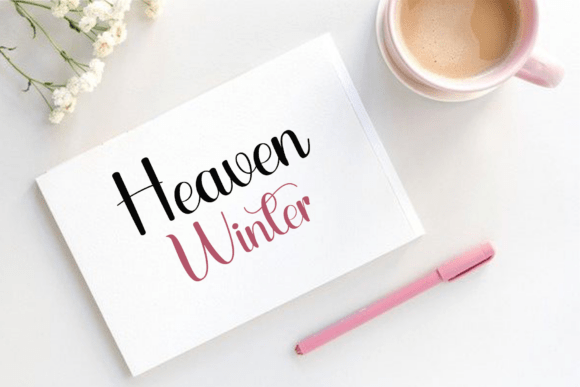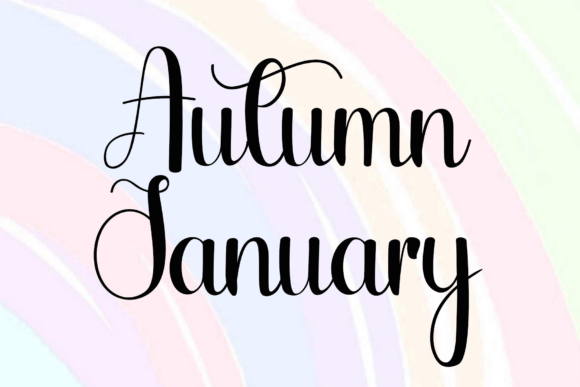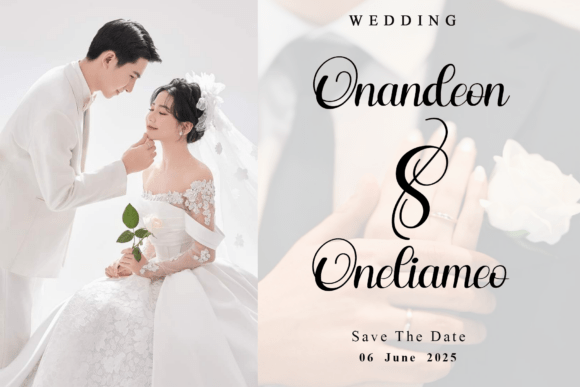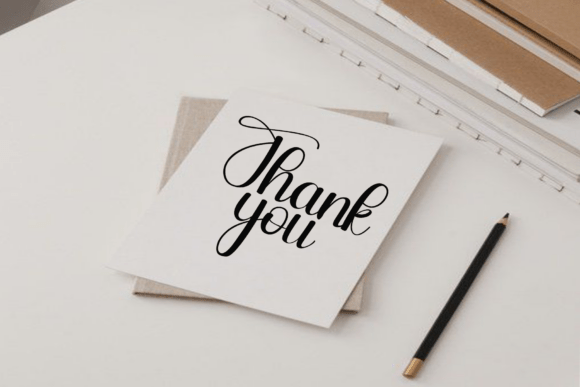
Introducing Fortuna Font: Elevate Your Designs with Timeless Elegance
Are you on the hunt for a font that exudes sophistication, elegance, and a touch of modern flair? Look no further than Fortuna Font, a stunning handwritten typeface that is sure to take your designs to the next level. Inspired by the classic calligraphy of yesteryear, Fortuna boasts a contemporary atmosphere and impeccable form, making it the perfect addition to any creative project.
The Inspiration Behind Fortuna Font
Fortuna Font draws its inspiration from the timeless world of classic calligraphy, where the art of beautiful handwriting reigns supreme. The creators of Fortuna have skillfully blended traditional techniques with modern sensibilities, resulting in a font that is both nostalgic and fresh. This harmonious balance of old and new is what sets Fortuna apart, making it an excellent choice for designers seeking a unique and captivating typeface.
Key Features of Fortuna Font
So, what makes Fortuna Font so special? Here are just a few of its key features:
- Stylish Handwritten Design: Fortuna’s elegant, cursive script is perfect for adding a touch of sophistication to any design.
- Contemporary Atmosphere: Despite its classic inspiration, Fortuna boasts a modern feel that will keep your designs looking fresh and current.
- Impeccable Form: Each letterform has been carefully crafted to ensure a beautiful, flowing script that is a joy to read.
- Balanced and Varied: Fortuna’s characters have been designed to work seamlessly together, providing a natural flow and rhythm to your text.
Fortuna Font’s versatility makes it an excellent choice for a wide range of design projects, including:
- Branding and Logos: Fortuna’s elegant script is perfect for creating sophisticated brand identities and logos.
- Wedding and Event Stationery: Add a touch of romance and whimsy to your wedding invitations, save-the-dates, and other event materials.
- Packaging and Product Design: Fortuna’s modern feel makes it an excellent choice for product labels, packaging, and point-of-purchase displays.
- Digital Media: Use Fortuna to add a touch of elegance to your website, social media graphics, and digital advertising.
Why Choose Fortuna Font?
With so many fonts to choose from, why should you opt for Fortuna? Here are just a few compelling reasons:
- Unique and Memorable: Fortuna’s distinctive script will help your designs stand out from the crowd and leave a lasting impression.
- Easy to Read: Despite its elegant nature, Fortuna is surprisingly legible, making it perfect for both headlines and body text.
- Highly Versatile: Fortuna’s flexibility makes it suitable for a wide range of design projects and applications.
In conclusion, Fortuna Font is a truly exceptional typeface that offers the perfect blend of classic elegance and modern sophistication. Whether you’re a designer, craftsperson, or simply someone who appreciates beautiful typography, Fortuna is sure to impress. With its stylish handwritten design, impeccable form, and versatile nature, Fortuna Font is the perfect addition to any creative project. So why wait? Discover the beauty of Fortuna Font for yourself and elevate your designs to new heights.